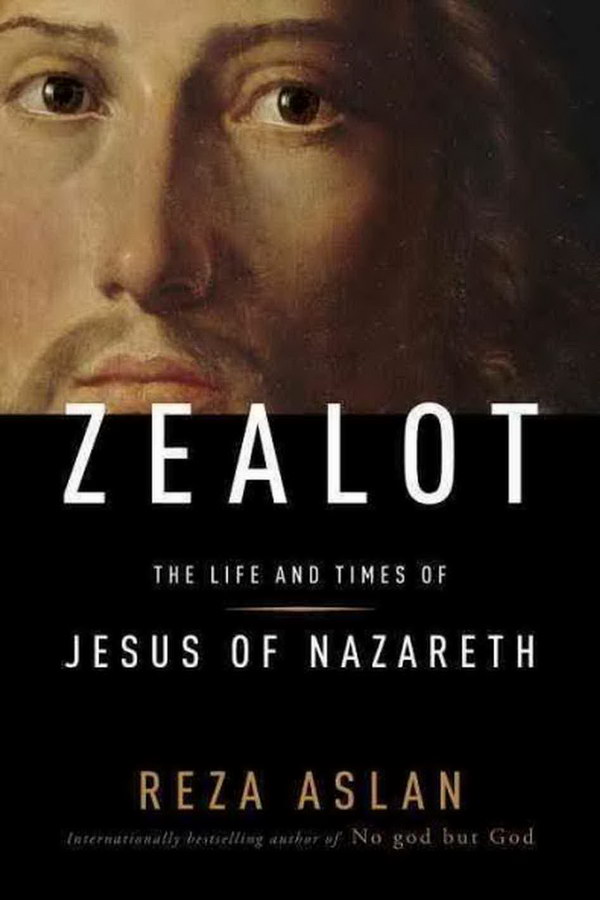
Zealot Font
BookZealot by Reza Aslan is a historical and biographical account of the life of Jesus of Nazareth, exploring his political and social context within first-century Palestine and challenging traditional Christian beliefs about his identity and teachings.